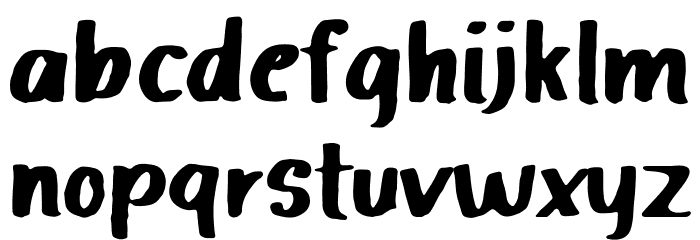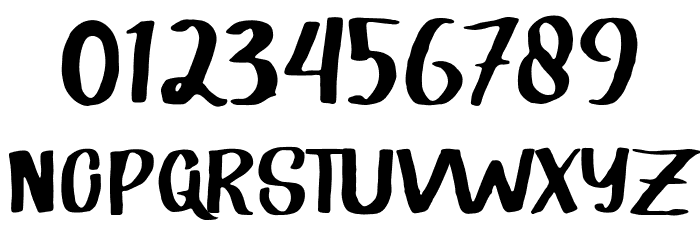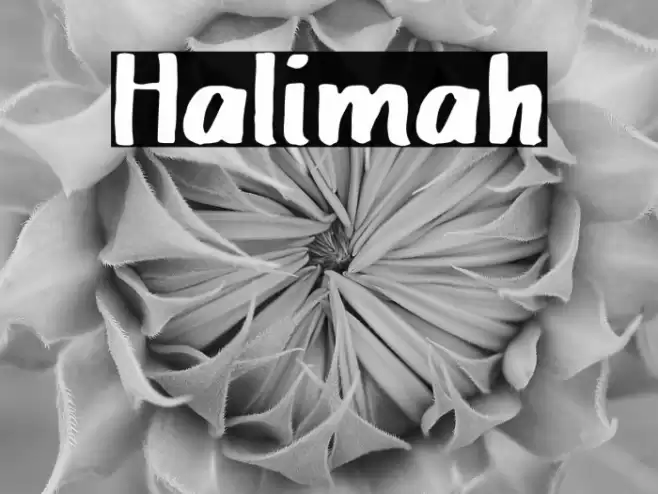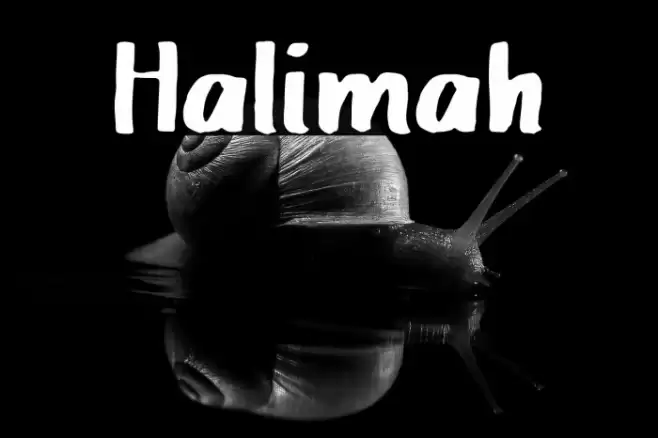
Halimah Font
This font features a bold and expressive handwritten style, characterized by its thick strokes and playful curves. The letters have a casual, organic feel, with varying stroke widths that add a dynamic and lively appearance. The uppercase and lowercase letters maintain a consistent style, while the numbers and special characters integrate seamlessly with the overall design. This font's unique personality makes it stand out, offering a friendly and approachable aesthetic that is both modern and versatile.
A bold, expressive handwritten font with playful curves and thick strokes.
- Proposed Projects: Ideal for branding projects, invitations, greeting cards, and social media graphics where a personal touch is desired.
- Overall Style: Modern, Decorative